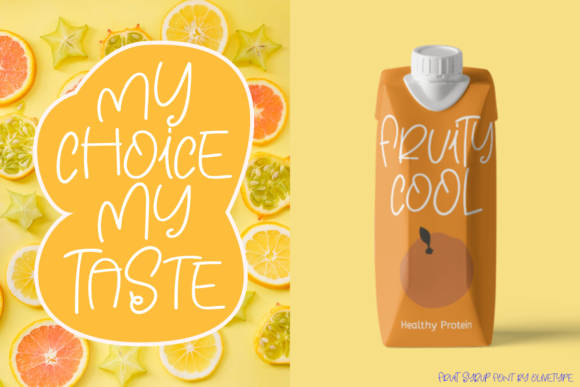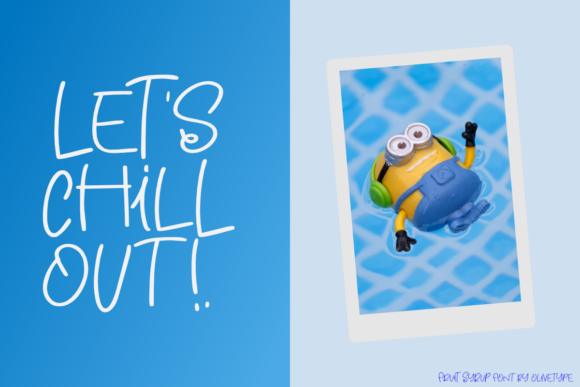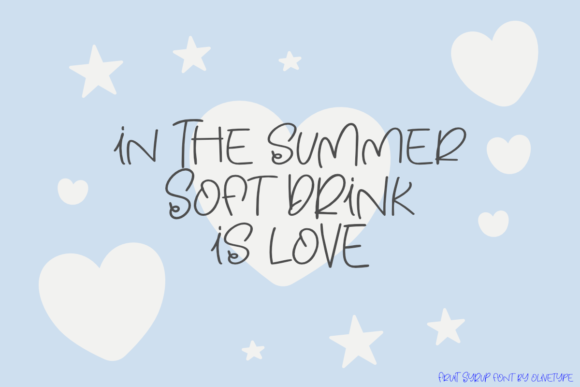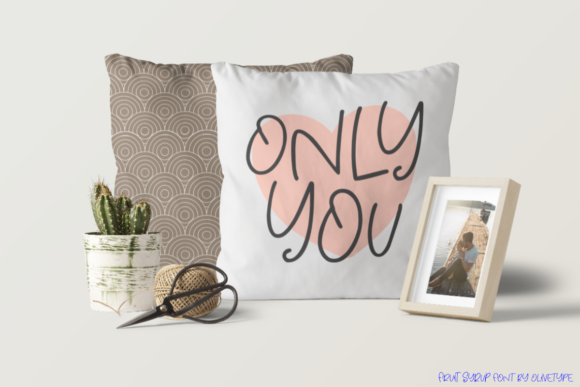
About Fruit Syrup Font
“Fruit Syrup” is a simple, thin lettered, and quirky handwritten font that adds a playful and whimsical touch to your designs. With its unique character and charm, this font has the potential to elevate any creation and make it stand out.
The simplicity of “Fruit Syrup” gives it a clean and modern look, making it versatile and suitable for a wide range of projects. Whether you’re designing logos, packaging, invitations, social media graphics, or any other creative endeavor, this font can add a delightful and distinctive element to your work.
The thin letterforms of “Fruit Syrup” create a light and airy feel, allowing it to blend seamlessly into various design styles and themes. Its quirkiness adds a touch of personality, making it especially suitable for projects that require a fun and lighthearted tone.
One of the strengths of “Fruit Syrup” is its ability to complement other fonts and elements in your designs. It can work well as a headline or paired with a more formal or bold typeface to create a balanced and eye-catching composition. Experiment with different combinations to find the perfect balance for your project.
The versatility of “Fruit Syrup” extends to its potential applications. It can be used in branding, stationery, children’s books, product packaging, and more. Its playful nature adds a sense of joy and creativity, making it perfect for projects targeting a youthful and energetic audience.
Whether you’re designing for personal or professional purposes, “Fruit Syrup” offers a unique and engaging option to enhance your designs. Embrace its simplicity, quirkiness, and potential for creativity, and let it bring a refreshing and vibrant touch to your creations.